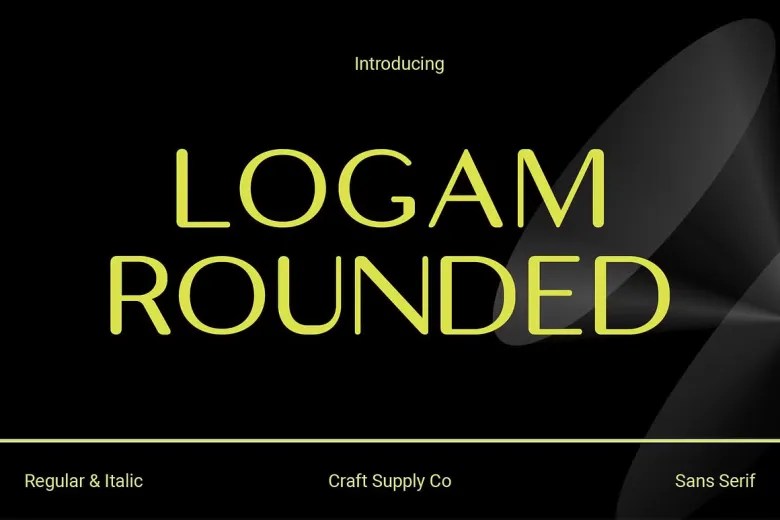
Logam Rounded Font
Logam Rounded is a contemporary sans serif font that stands out with its bright contrast and uniquely rounded stem terminals. This combination of striking letter contrasts and smooth, curved ends creates a modern elegance that is both visually captivating and stylistically versatile. The font’s design effortlessly merges bold visual appeal with a soft, approachable look, making it an attractive choice for a wide range of design projects.
Ideal for advertising, editorial design, and web projects, Logam Rounded is a versatile tool in any designer’s toolkit. Its distinctive features, including the high contrast and rounded terminals, naturally draw attention, ensuring that your message is both impactful and memorable. This font’s ability to capture the eye makes it particularly effective in conveying strong, visually engaging messages.
Embodying contemporary sophistication, Logam Rounded combines clean, modern aesthetics with a stylish flair. It enhances any design work with its blend of contemporary style and aesthetic appeal. Logam Rounded is available for free download for personal use, but if you want to purchase the full version and commercial license, you can do so HERE.